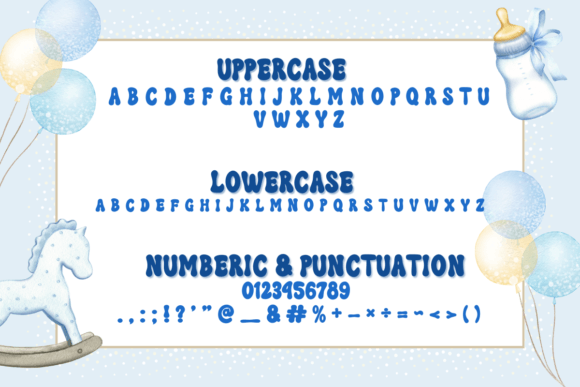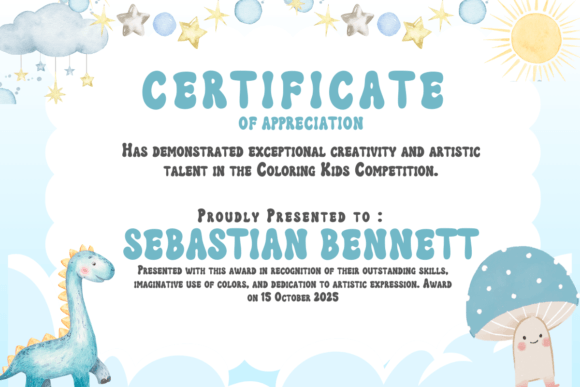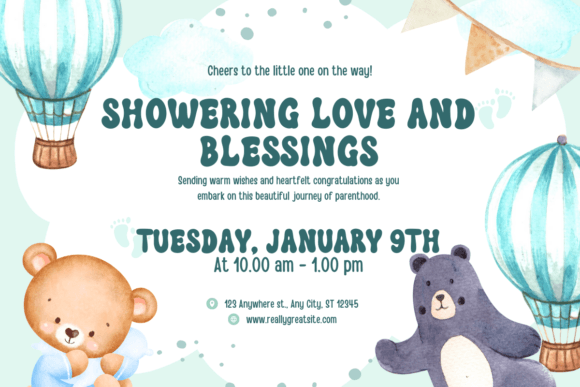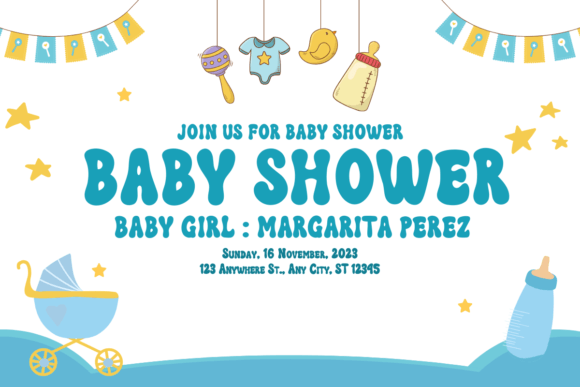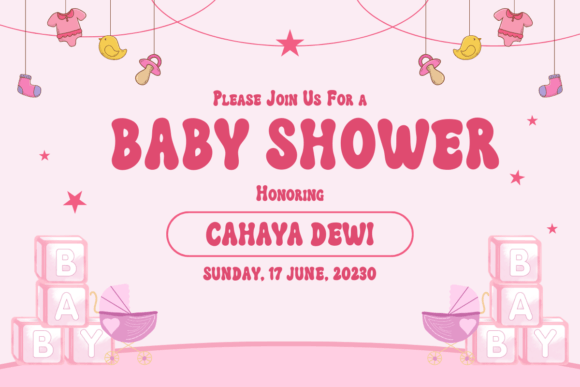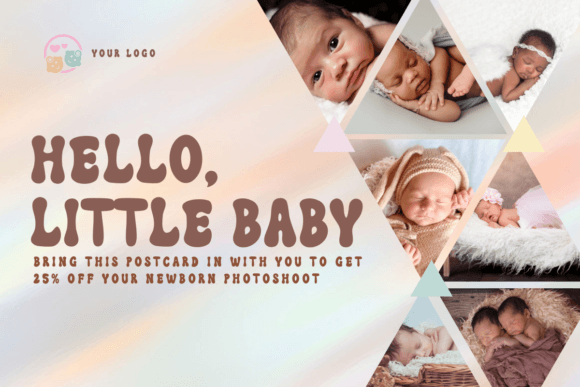
Cute Baby Font: The Ultimate Guide for Designers and Crafters
Are you looking for a font that can add a touch of sweetness and innocence to your designs? Look no further than the Cute Baby font! This adorable display font is perfect for a variety of projects, from personal notes and diaries to professional designs such as banners, greeting cards, and social media posts.
What is Cute Baby Font?
Cute Baby is a cute display font that features rounded and bubbly letters, making it perfect for designs that require a playful and youthful touch. The font is highly legible and can be used for both personal and commercial projects. Its unique and charming design makes it stand out from other fonts, making it a great addition to any designer’s toolkit.
Uses of Cute Baby Font
Cute Baby font can be used for a wide range of projects, including:
- Note-taking and diary writing: Add a personal touch to your notes and diary entries with the Cute Baby font. It’s perfect for jotting down thoughts, ideas, and inspiration.
- Greeting cards: Create adorable greeting cards for special occasions such as birthdays, weddings, and holidays.
- Banners and signs: Use the Cute Baby font to create eye-catching banners and signs for events, parties, and promotions.
- Mugs and water bottles: Add a cute and playful touch to your mug and water bottle designs with the Cute Baby font.
- Shirts and apparel: Create adorable designs for shirts, hoodies, and other apparel items.
- Stationery: Use the Cute Baby font to create cute and playful stationery, including notebooks, journals, and stickers.
- Social media posts: Add a touch of cuteness to your social media posts and stories with the Cute Baby font.
Benefits of Using Cute Baby Font
There are several benefits to using the Cute Baby font in your designs:
- Unique and eye-catching: The Cute Baby font is unlike any other font, making it perfect for designs that require a unique and eye-catching touch.
- Highly legible: The font is highly legible, making it easy to read and understand.
- Versatile: The Cute Baby font can be used for a wide range of projects, from personal notes to professional designs.
- Playful and youthful: The font features a playful and youthful design, making it perfect for designs that require a touch of innocence and sweetness.
Tips for Using Cute Baby Font
Here are some tips for using the Cute Baby font in your designs:
- Use it sparingly: While the Cute Baby font is adorable, it can be overwhelming if used excessively. Use it sparingly to add a touch of cuteness to your designs.
- Pair it with other fonts: Pair the Cute Baby font with other fonts to create a unique and interesting design.
- Experiment with colors: Experiment with different colors to find the perfect combination that complements the Cute Baby font.
- Keep it simple: Keep your design simple and clean to ensure that the Cute Baby font is the focal point.
In conclusion, the Cute Baby font is a versatile and adorable display font that can add a touch of sweetness and innocence to your designs. Its unique and eye-catching design makes it perfect for a wide range of projects, from personal notes to professional designs. With its highly legible and playful design, the Cute Baby font is a great addition to any designer’s toolkit.
Whether you’re a designer, crafter, or simply someone who loves to create, the Cute Baby font is sure to inspire you to create adorable and eye-catching designs. So why not give it a try and see how it can elevate your designs to the next level?